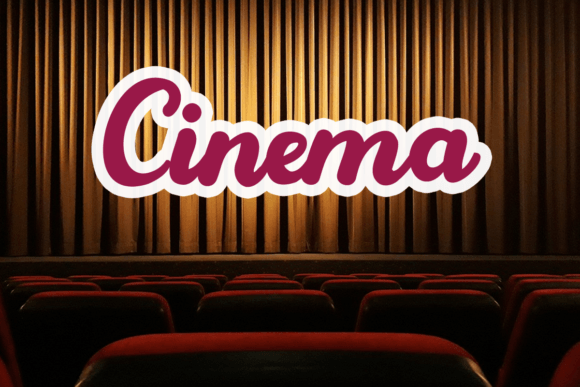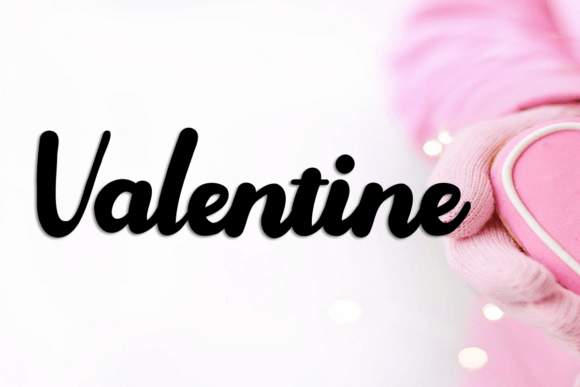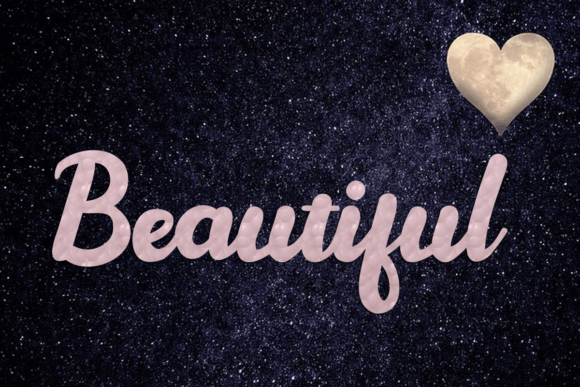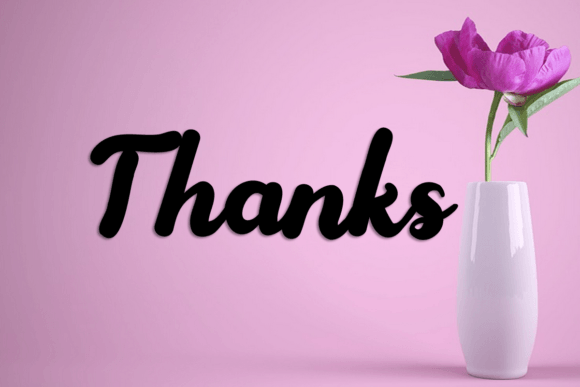
Introducing Automatic: The Stylish Handwritten Font for Modern Design
In the world of typography, a well-crafted font can elevate a design project from ordinary to extraordinary. For designers and crafters seeking a stylish and contemporary handwritten font, look no further than Automatic. Inspired by timeless classic calligraphy, Automatic brings a touch of elegance and sophistication to any project.
The Inspiration Behind Automatic
Automatic’s design is rooted in the rich tradition of classic calligraphy. With a keen eye for detail and a deep understanding of typographic principles, the creators of Automatic have distilled the essence of timeless elegance into a modern, handwritten font. The result is a typeface that exudes a sense of refinement and poise, perfect for designers seeking to add a touch of class to their work.
Key Features of Automatic
So, what sets Automatic apart from other fonts? Here are a few key features that make it an exceptional choice for designers and crafters:
• Contemporary atmosphere: Automatic boasts a fresh, modern aesthetic that is sure to captivate audiences.
• Impeccable form: The font’s precise construction and attention to detail ensure a high level of legibility and readability.
• Balanced and varied: Automatic’s characters are thoughtfully crafted to provide a natural flow and rhythm, making it perfect for body text and headlines alike.
Why Choose Automatic?
With so many fonts available, why should designers and crafters choose Automatic? Here are just a few compelling reasons:
• Elegance and sophistication: Automatic adds a touch of refinement to any project, making it perfect for high-end branding, packaging, and editorial design.
• Versatility: This font is suitable for a wide range of applications, from digital media to print materials.
• Easy to read: Automatic’s clear, legible design ensures that your message is conveyed with clarity and impact.
Using Automatic in Your Design Projects
Automatic is an incredibly versatile font, suitable for a wide range of design applications. Here are a few ideas to get you started:
• Branding and packaging: Use Automatic to create eye-catching logos, labels, and packaging that stands out from the crowd.
• Editorial design: Add a touch of elegance to your editorial projects, such as magazines, newspapers, and books.
• Digital media: Automatic is perfect for digital platforms, including websites, social media graphics, and email marketing campaigns.
Tips for Getting the Most Out of Automatic
To maximize the impact of Automatic in your design projects, keep the following tips in mind:
• Experiment with font sizes: Automatic’s clear design ensures that it remains legible at a wide range of font sizes.
• Play with color: The font’s elegant design pairs well with a variety of colors and textures.
• Mix and match: Combine Automatic with other fonts to create visually interesting and dynamic typography.
In conclusion, Automatic is a stylish handwritten font that offers a unique blend of classic elegance and modern sophistication. With its impeccable form, balanced design, and versatile nature, it’s the perfect choice for designers and crafters seeking to elevate their projects. Whether you’re working on branding, editorial design, or digital media, Automatic is sure to make a lasting impression.